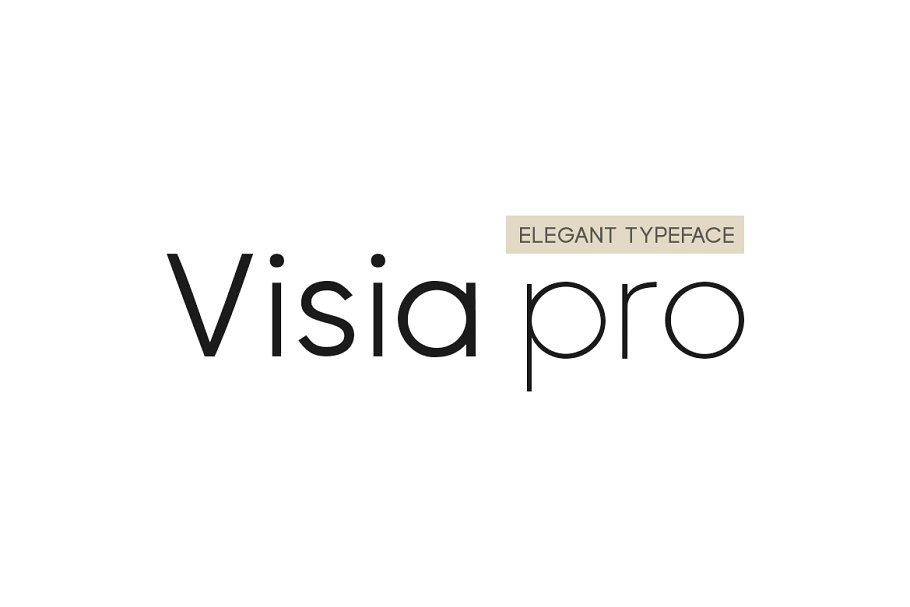
Visia Pro Font
Visia Pro Font is perfect for corporate branding, professional presentations, annual reports, business communications, financial documents, consulting materials, executive correspondence, technical publications, modern signage, and sophisticated editorial design. This versatile typeface excels in both digital and print applications requiring executive-level authority.
Visia Pro Font is exciting because it combines professional excellence with contemporary sophistication, offering refined letterforms that convey executive authority and business credibility while maintaining exceptional clarity and readability across all professional communication platforms and demanding business applications.
The Visia Pro Font family includes regular, bold, light, italic, condensed, extended, and display variants, providing designers with comprehensive typographic options for various design scenarios and corporate communication hierarchies.
Visia Pro Font represents the pinnacle of professional typography, delivering uncompromising performance for organizations that demand excellence in every aspect of their visual communication. This premium typeface combines business authority with contemporary aesthetics, creating letterforms that inspire confidence while maintaining the sophistication required for executive-level presentations and high-stakes business communications. The font's professional character makes it particularly valuable for Fortune 500 companies, management consulting firms, investment banks, and professional services organizations that require typography capable of conveying competence, reliability, and market leadership.
The systematic design of Visia Pro Font ensures superior performance across demanding business environments, from boardroom presentations to complex financial reporting where clarity and professionalism are paramount. This meticulous construction guarantees consistent results whether displayed on high-resolution displays or reproduced in detailed corporate documentation requiring absolute precision. The font's authoritative presence creates business communications that command respect while maintaining the readability essential for information-heavy applications and decision-making processes.
Creative professionals working with Visia Pro Font Free Download will discover a powerful tool for high-level corporate design challenges. Its sophisticated styling bridges traditional business communication with modern design sensibilities, making it suitable for established multinational corporations and emerging professional services requiring credible, authoritative typography. The font's commanding presence makes it especially effective for law firms, accounting practices, management consultancies, and financial institutions that must communicate expertise through polished, trustworthy visual design.
From executive communications to brand development, Visia Pro Font provides the typographic authority needed for professional communications that inspire confidence and convey business excellence, ensuring your organization maintains competitive advantage and achieves maximum impact in today's demanding corporate environment.